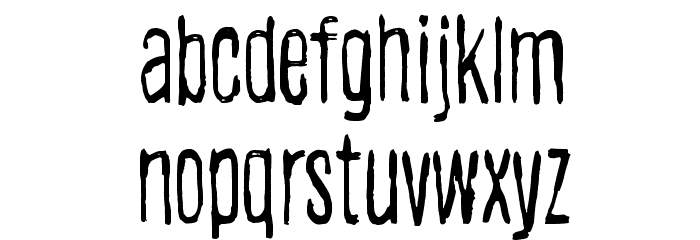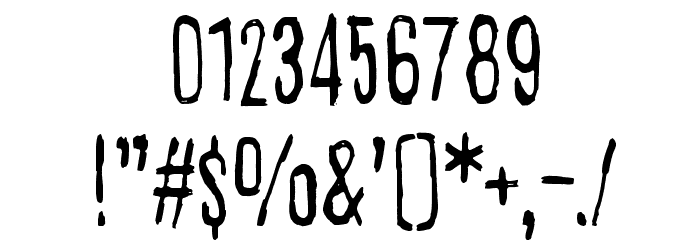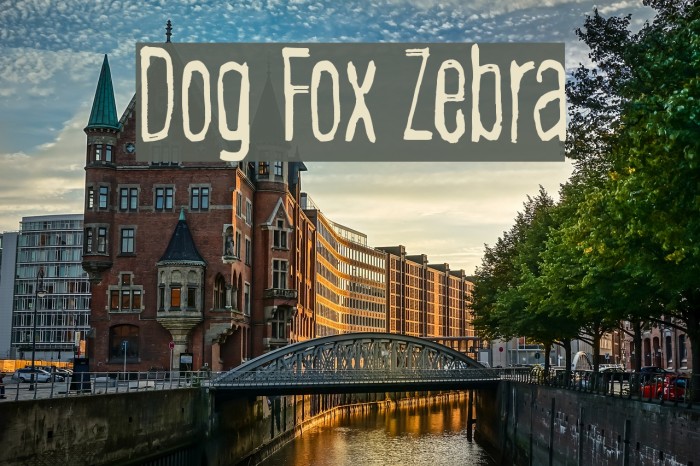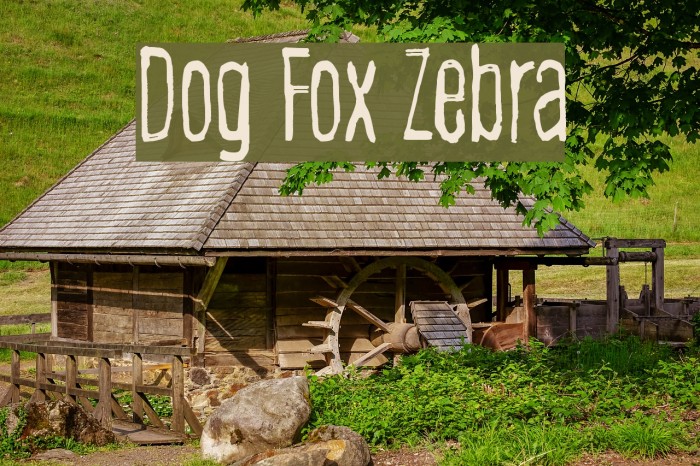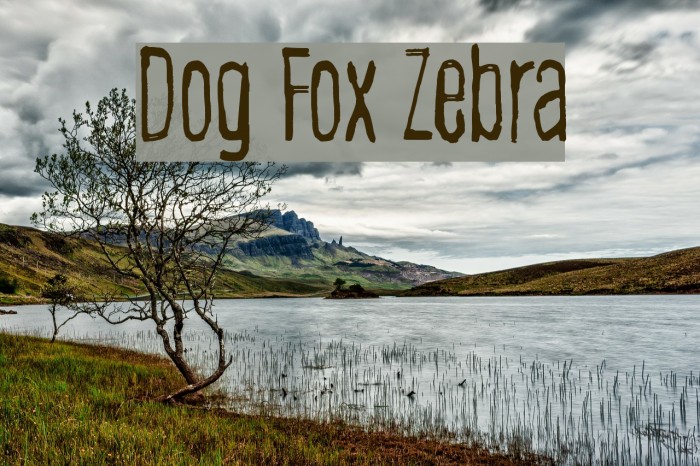
Dog Fox Zebra Font
This font features a distinctive, hand-drawn appearance with irregular strokes that give it a rustic and organic feel. The letters are slightly elongated and uneven, contributing to a playful yet edgy aesthetic. The uppercase and lowercase characters maintain a consistent style, with a noticeable roughness around the edges that adds to its charm. The numerals and special characters follow the same design principles, ensuring a cohesive look across all glyphs. This font's unique style makes it stand out, ideal for projects that require a touch of individuality and creativity.
A hand-drawn, rustic font with irregular strokes and a playful, edgy aesthetic.
- Proposed Projects: Ideal for creative projects such as posters, album covers, branding for artisanal products, or any design needing a handcrafted touch.